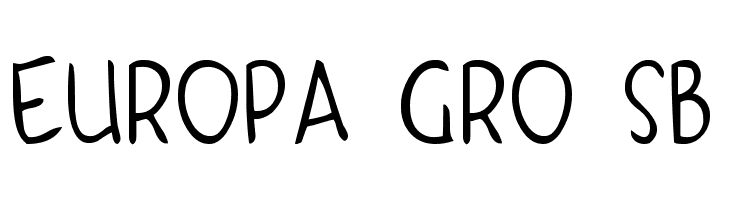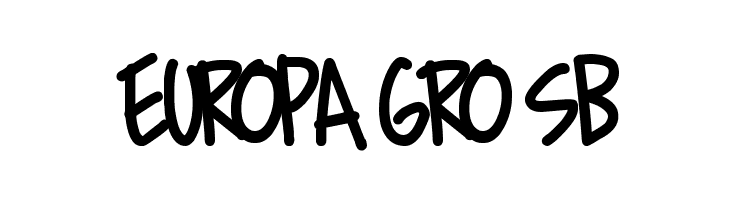
A bold, playful font with irregular, cartoonish letterforms.
A playful, hand-drawn comic style font with a casual and friendly appearance.
A playful, hand-drawn font with bold, dynamic strokes.
A bold, playful font with rounded, cartoonish letters.